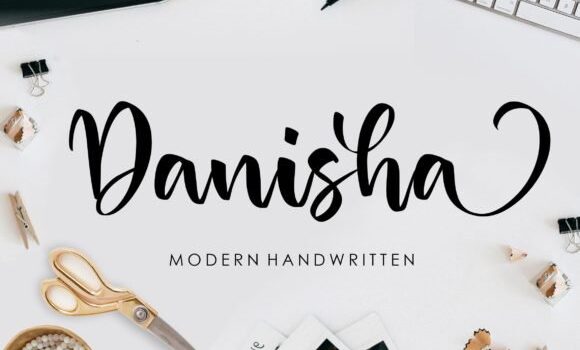
danisha
Danisha Font – Free Download Introduction to Danisha Font Danisha is a romantic and sweet calligraphy typeface with characters that dance along the baseline. 📸 Preview Gallery 6 images 📌 Product Name Danisha Font 👤 Author Balpirick 📂 Category Explore